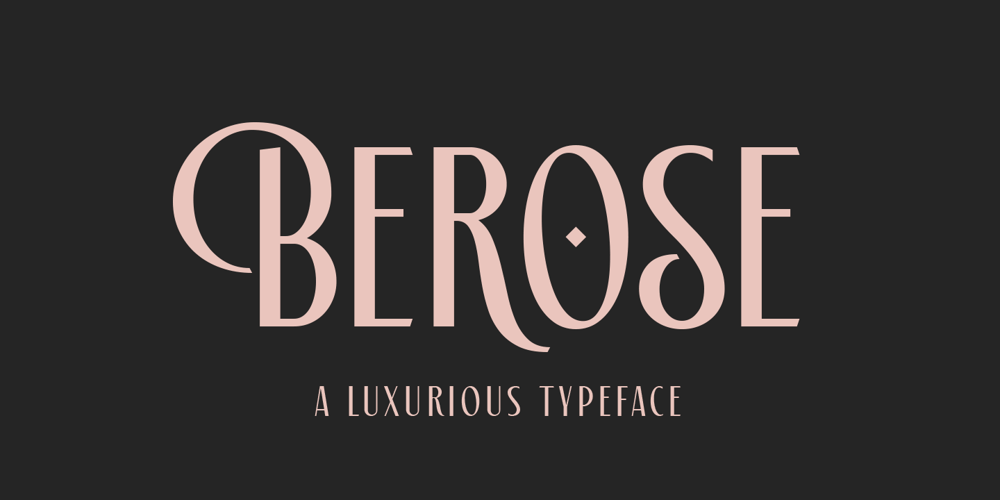
Berose Font Family was designed by Adil Budianto and published by Surotype. Berose contains 2 styles and family package options. Berose is a luxurious typeface with high contrast. Comes in two styles regular and oblique with some alternative characters. With its elegant and dynamic character, Berose is perfect for romantic nuances such as wedding invitations, Covers, Movie title, Logotype, Poster, Quotes, Signage or something else.To Access Alternate Characters, Software that Supports Opentype is required.